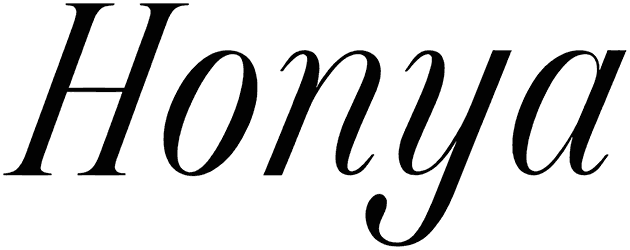
Honya Font
You must be familiar with the rich classic touch of serif fonts like Honya. So if you feel a great boost of elegance in your text after adding this swash font, that’s just part of the deal.
After all, its exquisite style is nothing to be surprised about. It’s for the same reason that Honya does such an excellent job as a beauty salon logo, music school sign, talent agent business card, and so on.